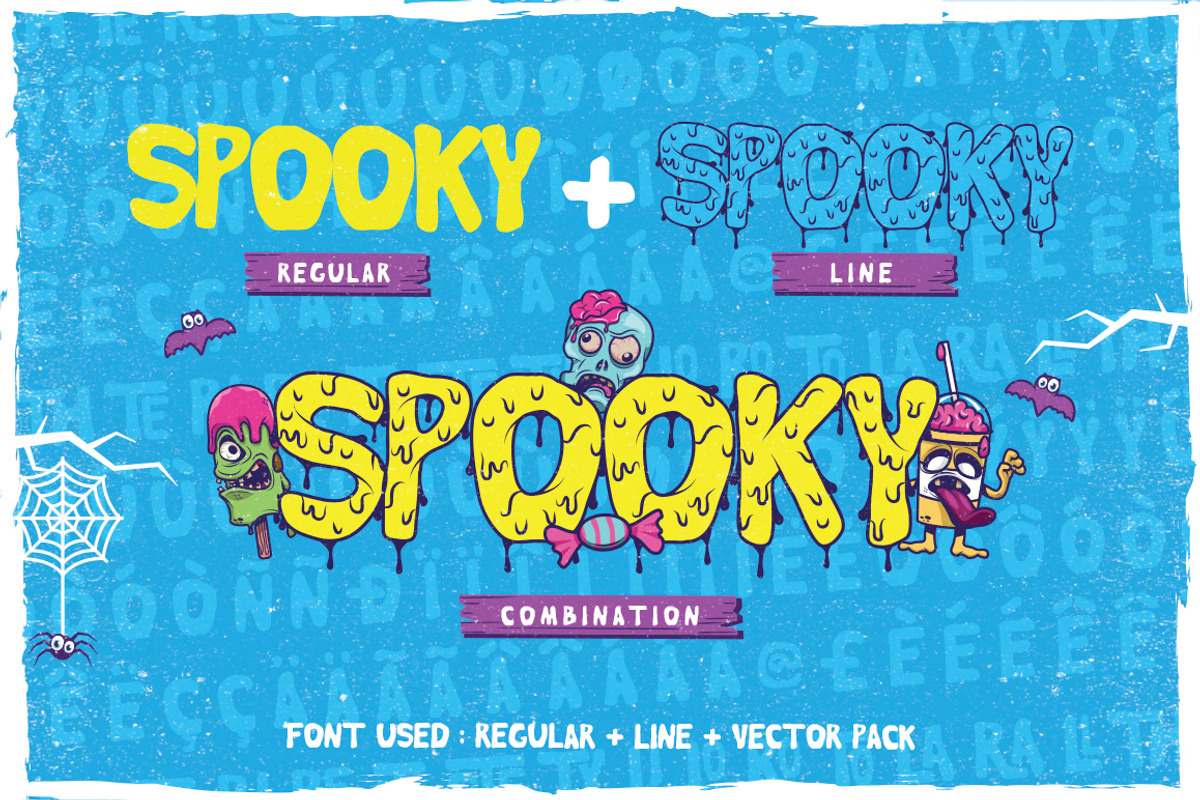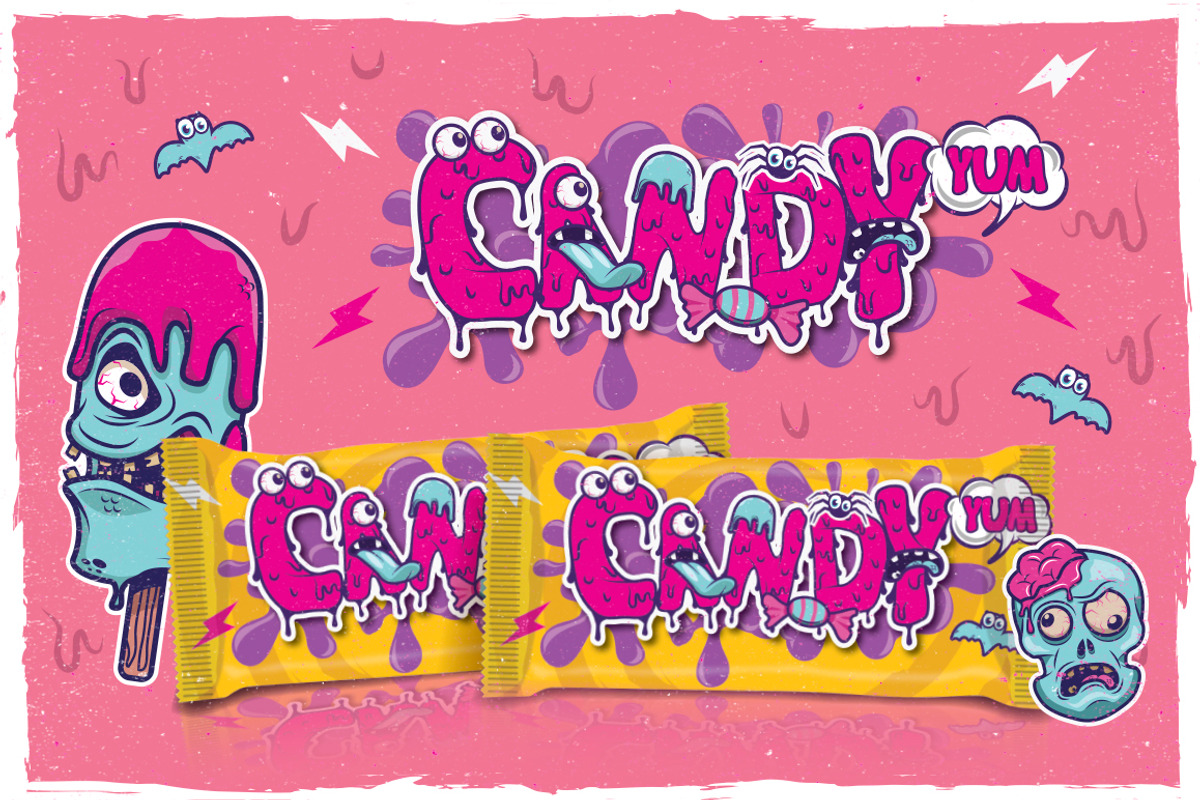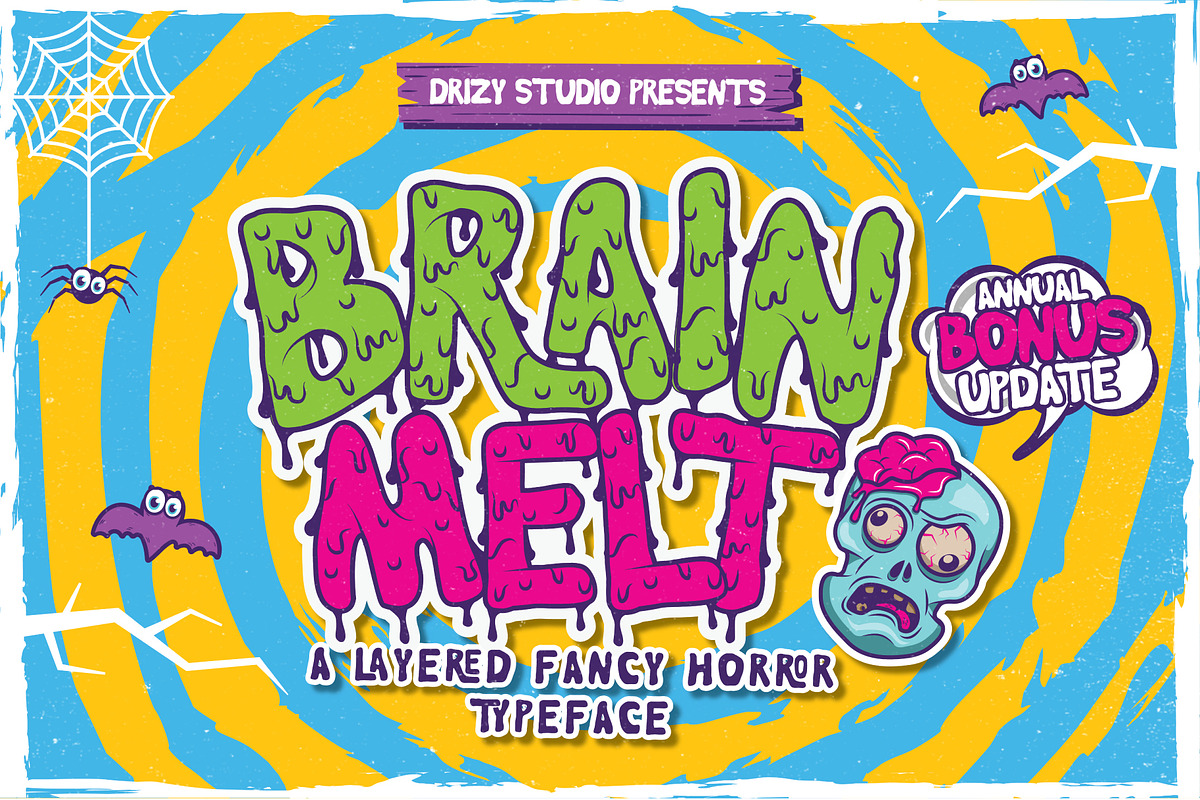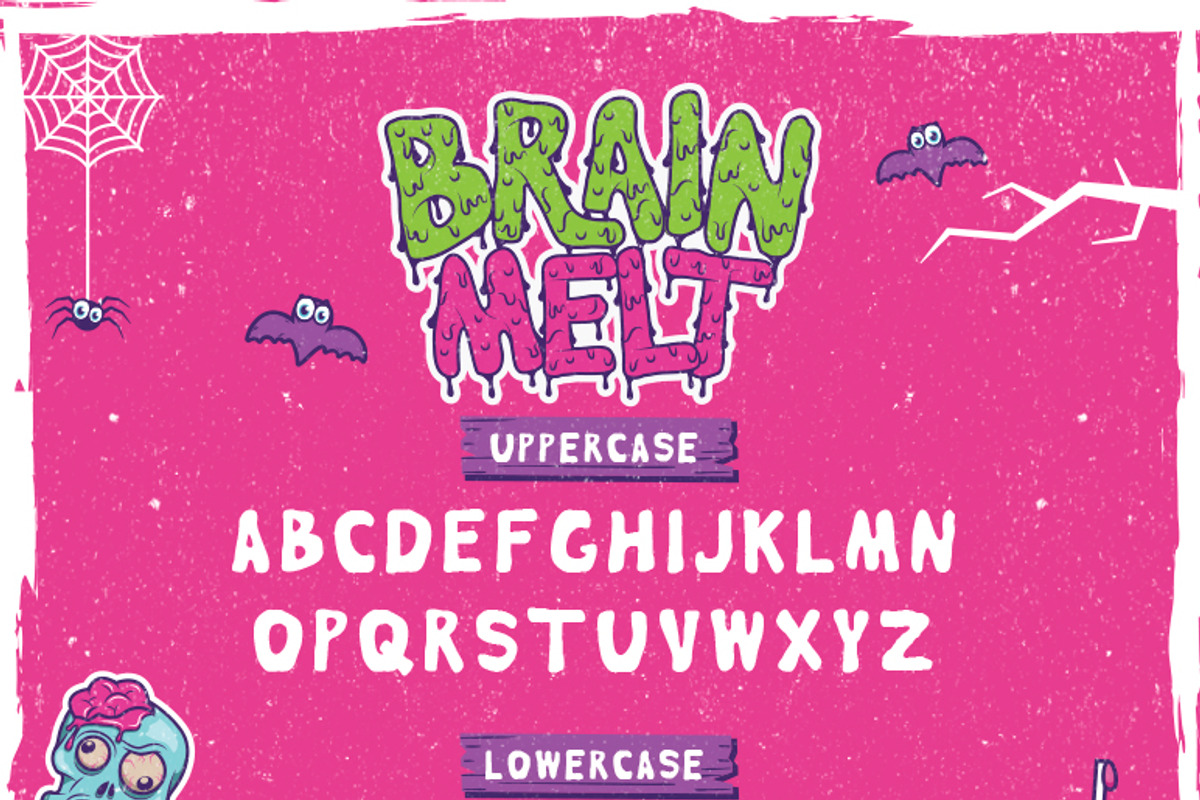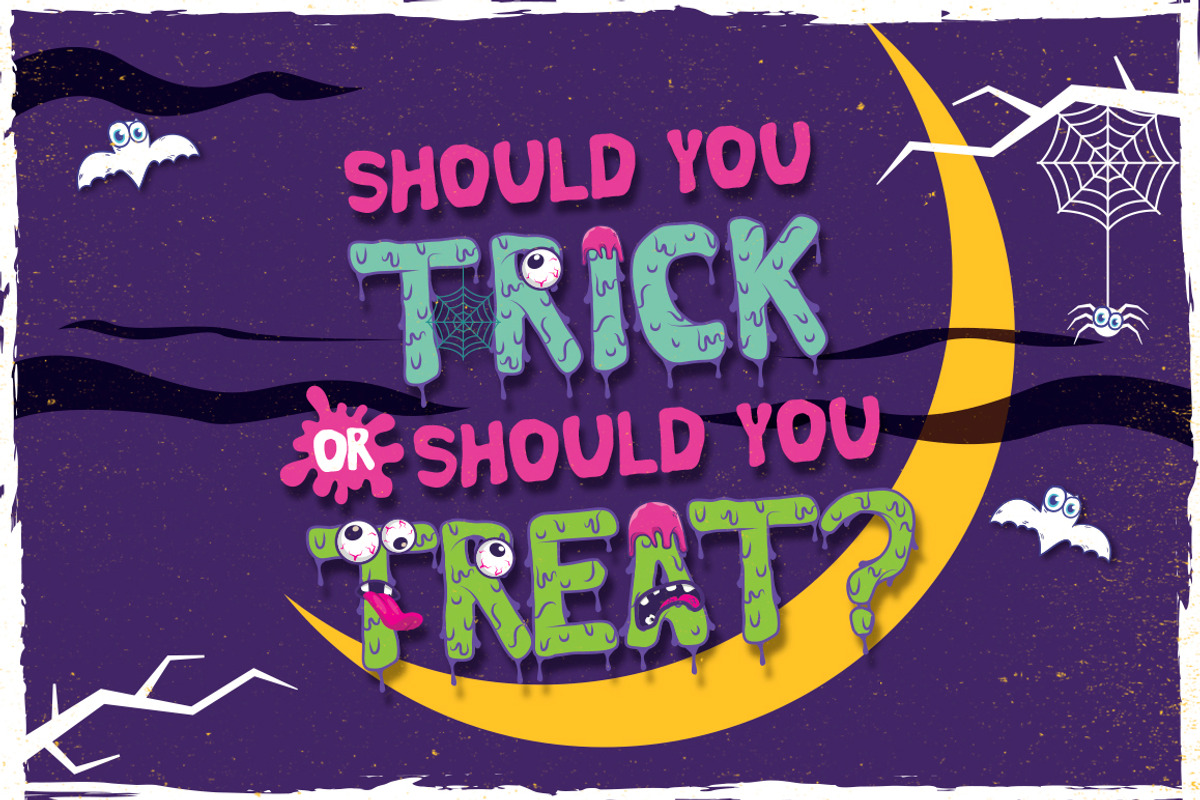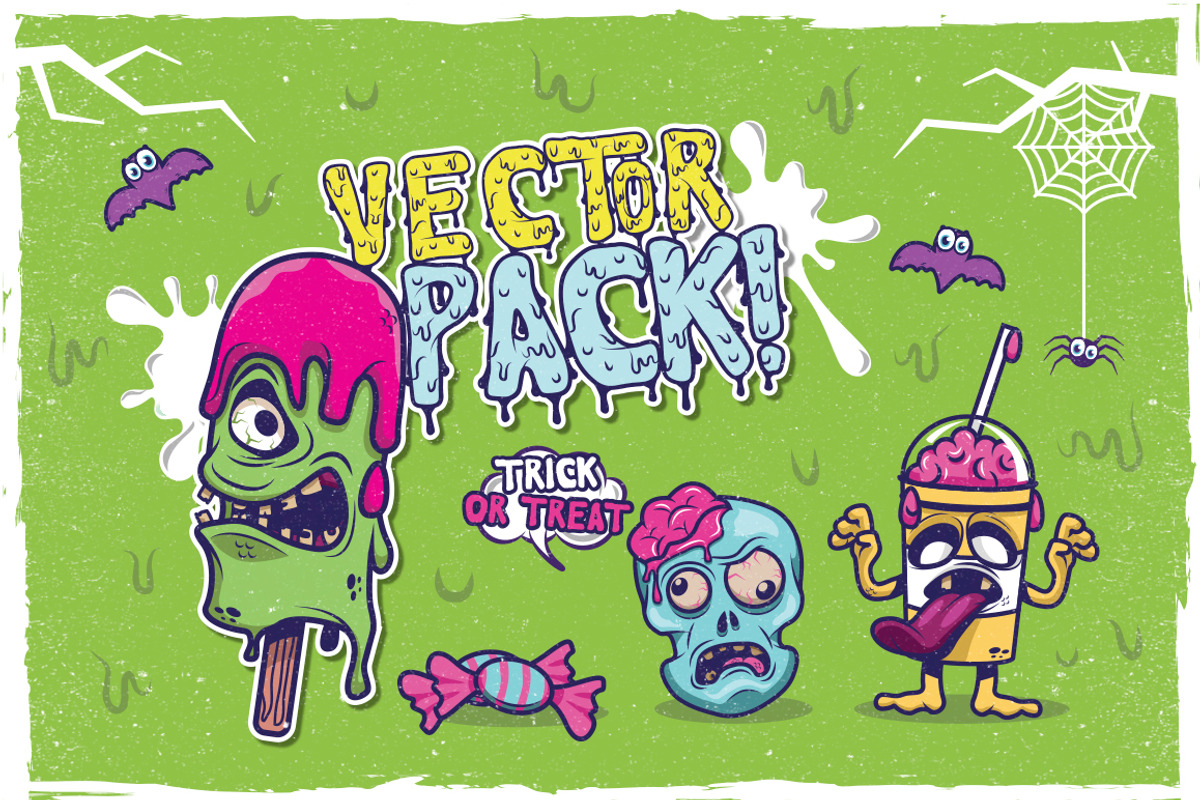
Brain Melt Layered Typeface
Brain Melt Layered Typeface by Drizy is a font selected for branding, posters, packaging, typography.
- Brain Melt comes with “Vector Pack & Halloween Flyer”, to make you easier for adding the “fun object”.
Why Brain Melt Layered Typeface is worth a look
Brain Melt Layered Typeface by Drizy fits naturally into Branding, posters, packaging, typography.